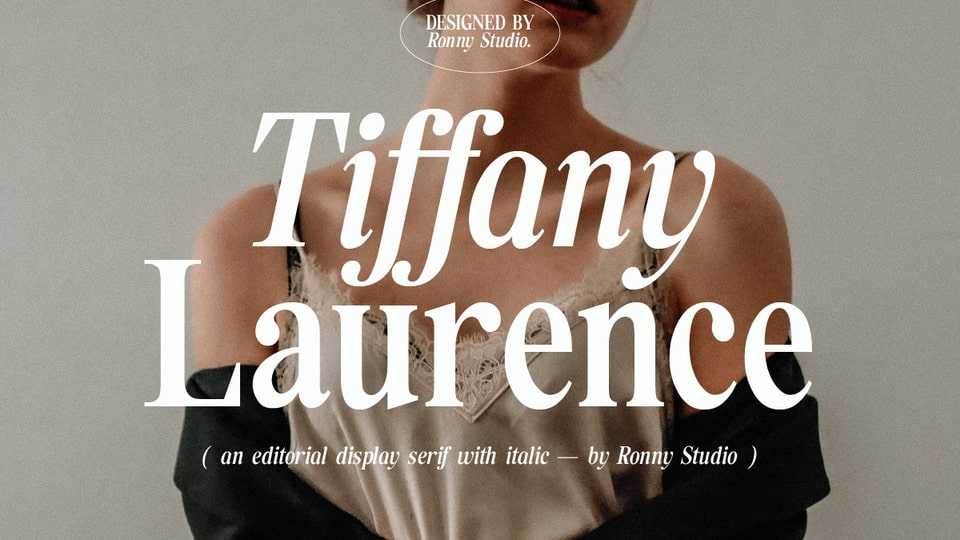
Download Tiffany Laurence font, a classy eighties magazine-inspired serif typeface. Tiffany Laurence font looks premium and is very suitable for your design needs such as invitations, labels, logos, magazines, books and more.